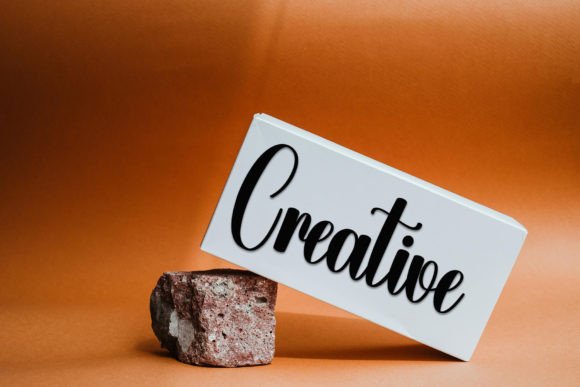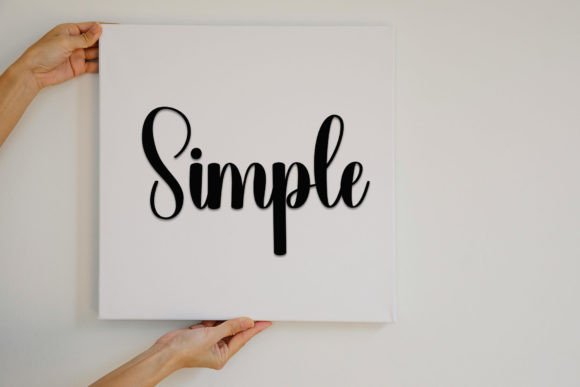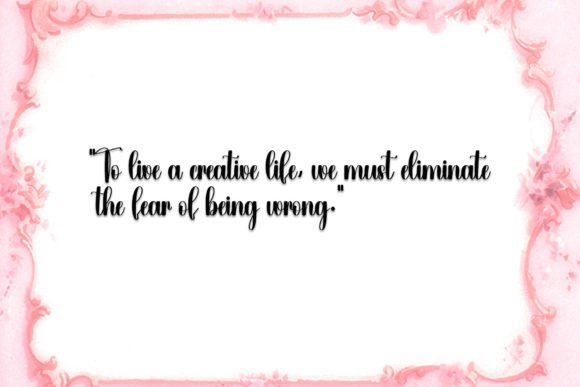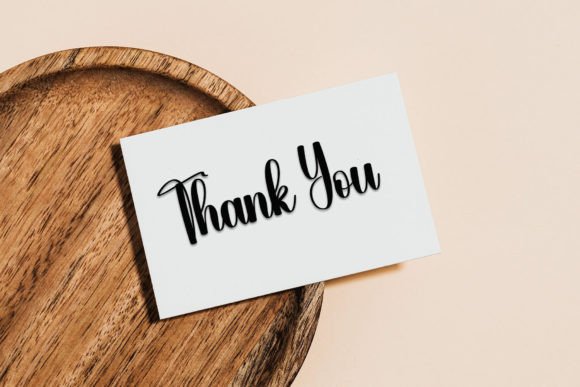
Introducing Bundle Font: Elevate Your Designs with Elegance and Sophistication
In the world of typography, a font can make or break a design. For designers and crafters, finding the perfect font that adds a touch of elegance and sophistication to their work can be a daunting task. This is where Bundle Font comes in – a delicate, elegant, and flowing handwritten font that has taken the design community by storm. In this article, we’ll dive into the world of Bundle Font, exploring its features, benefits, and uses, and why it’s a must-have for any designer or crafter looking to elevate their designs.
What is Bundle Font?
Bundle Font is a beautiful, handwritten font that boasts elegant and flowing strokes, making it perfect for a wide range of design projects. Its delicate and refined characters are carefully crafted to provide a sense of sophistication and luxury, making it ideal for designs that require a touch of high-end elegance. Whether you’re working on a branding project, a wedding invitation, or a craft project, Bundle Font is sure to impress.
Key Features of Bundle Font
- Beautiful and well-balanced characters: Each character in Bundle Font is carefully designed to ensure that they are well-balanced and visually appealing, making it perfect for use in a variety of design projects.
- Elegant and flowing strokes: The font features elegant and flowing strokes that give it a sense of movement and fluidity, adding a touch of sophistication to any design.
- Delicate and refined: Bundle Font is a delicate and refined font that is perfect for designs that require a touch of elegance and luxury.
- Versatile: The font is versatile and can be used in a wide range of design projects, from branding and advertising to wedding invitations and craft projects.
Benefits of Using Bundle Font
So, why should you choose Bundle Font for your design projects? Here are just a few benefits of using this beautiful font:
- Adds elegance and sophistication: Bundle Font adds a touch of elegance and sophistication to any design, making it perfect for projects that require a high-end feel.
- Improves readability: The font is designed to be easy to read, making it perfect for use in body text, headings, and titles.
- Versatile: Bundle Font can be used in a wide range of design projects, making it a great addition to any designer’s toolkit.
- Unique and distinctive: The font’s unique and distinctive style sets it apart from other fonts, making it perfect for designers who want to create something truly unique.
Uses of Bundle Font
Bundle Font is a versatile font that can be used in a wide range of design projects, including:
- Branding and advertising: Use Bundle Font to create elegant and sophisticated branding materials, such as logos, business cards, and brochures.
- Wedding invitations and stationery: The font’s elegant and refined style makes it perfect for use in wedding invitations, stationery, and other wedding-related design projects.
- Craft projects: Bundle Font is a great choice for crafters who want to add a touch of elegance and sophistication to their projects, such as handmade cards, scrapbooking, and DIY crafts.
- Digital design: The font can be used in digital design projects, such as website design, social media graphics, and email marketing campaigns.
In conclusion, Bundle Font is a beautiful and elegant handwritten font that is perfect for designers and crafters who want to add a touch of sophistication and elegance to their designs. With its delicate and refined characters, elegant and flowing strokes, and versatile style, Bundle Font is a great addition to any designer’s toolkit. Whether you’re working on a branding project, a wedding invitation, or a craft project, Bundle Font is sure to impress. So why not give it a try and see the difference it can make in your designs?